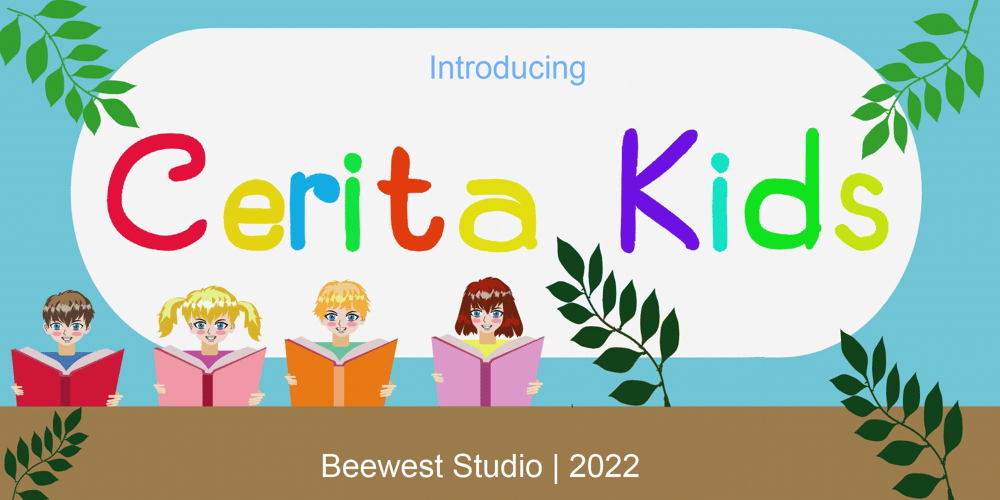
Cerita Kids Font Family was designed by bsmbang wisudyantoro and published by Beewest Studio. Cerita Kids contains 1 styles and family package options. Cerita Kids is Doodle Comic font style. This font is look relax and fun, suitable for comic and Children book.This font is rendered and done by manual hand drawing that digitalized as a font so this font is very natural.Thank you for download this font.